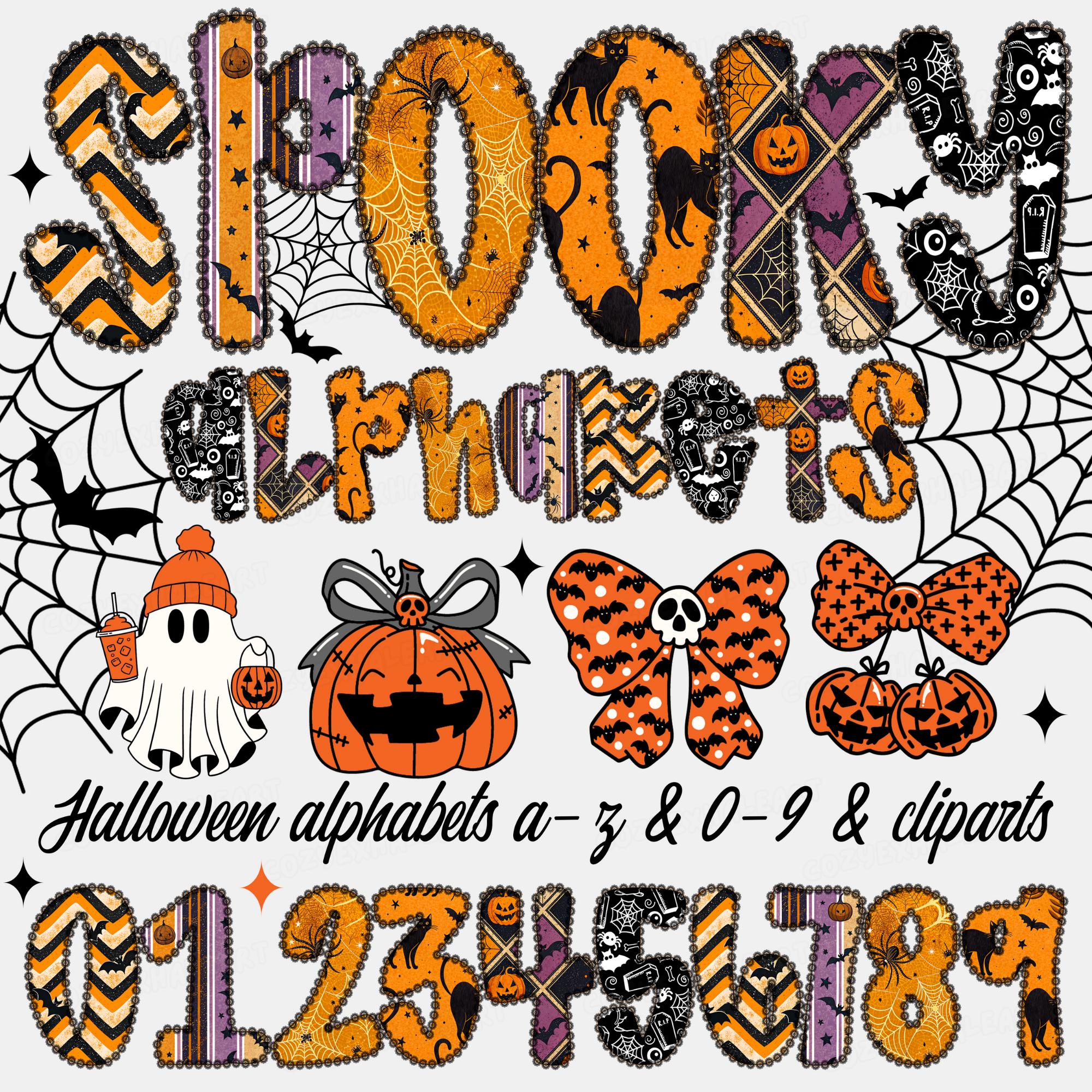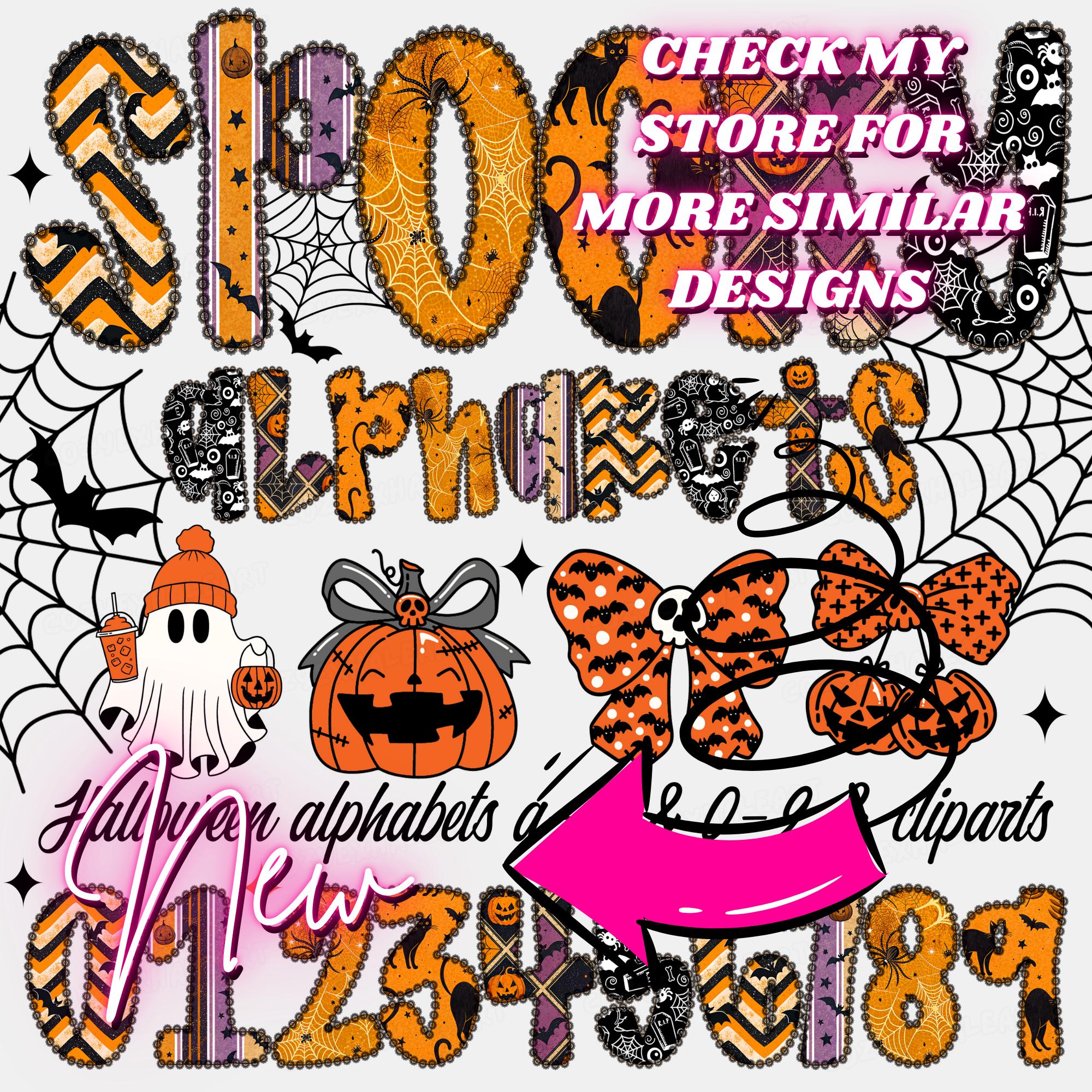
Spooky Halloween Alphabet PNG – Beaded Glitter Letters & Numbers with Ghosts, Pumpkins, Bows & Webs, Sublimation Font Set for Fall Crafts
Enter the spooky-chic side of Halloween with this Alphabet PNG Bundle — featuring bold beaded letters, glitter accents, ghosts, pumpkins, bows, bats, and cobwebs. Perfect for sublimation designs, spooky shirts, party invitations, trick-or-treat bags, and boutique fall creations.
This set blends playful Halloween charm with bold gothic sparkle, making it a must-have for crafters and small shop owners.
Make this Halloween unforgettable with a font set that’s spooky, sparkly, and unique.